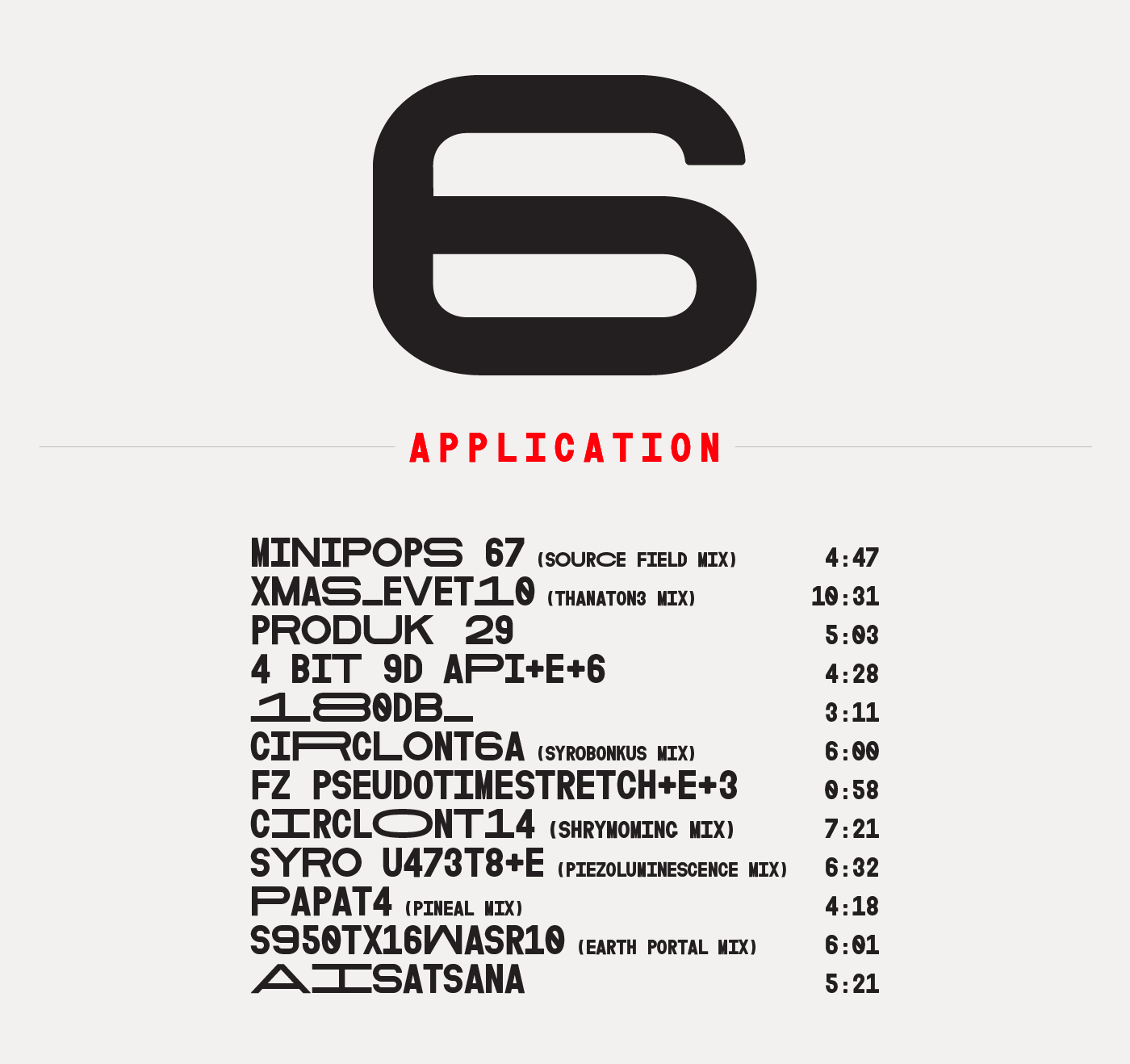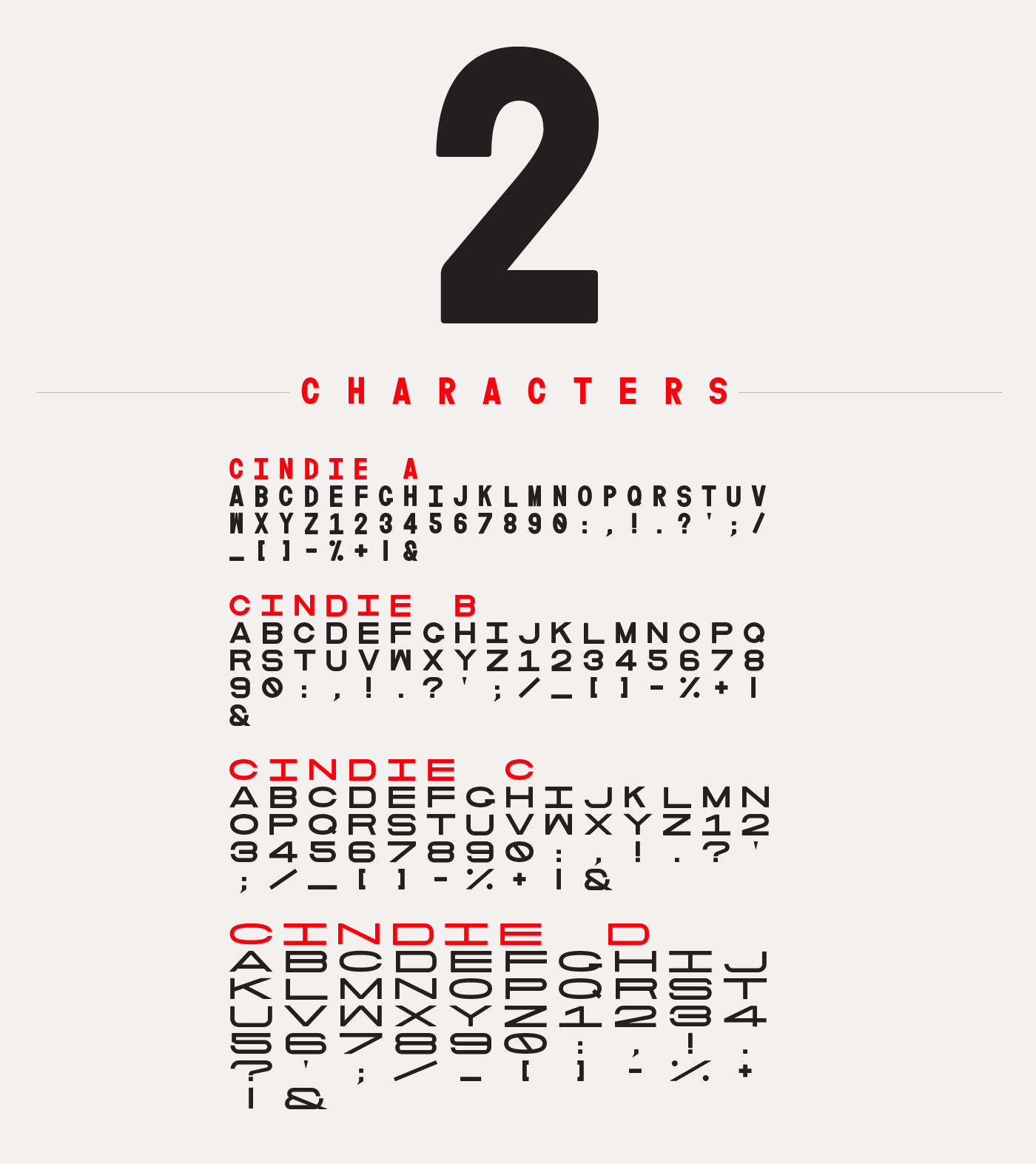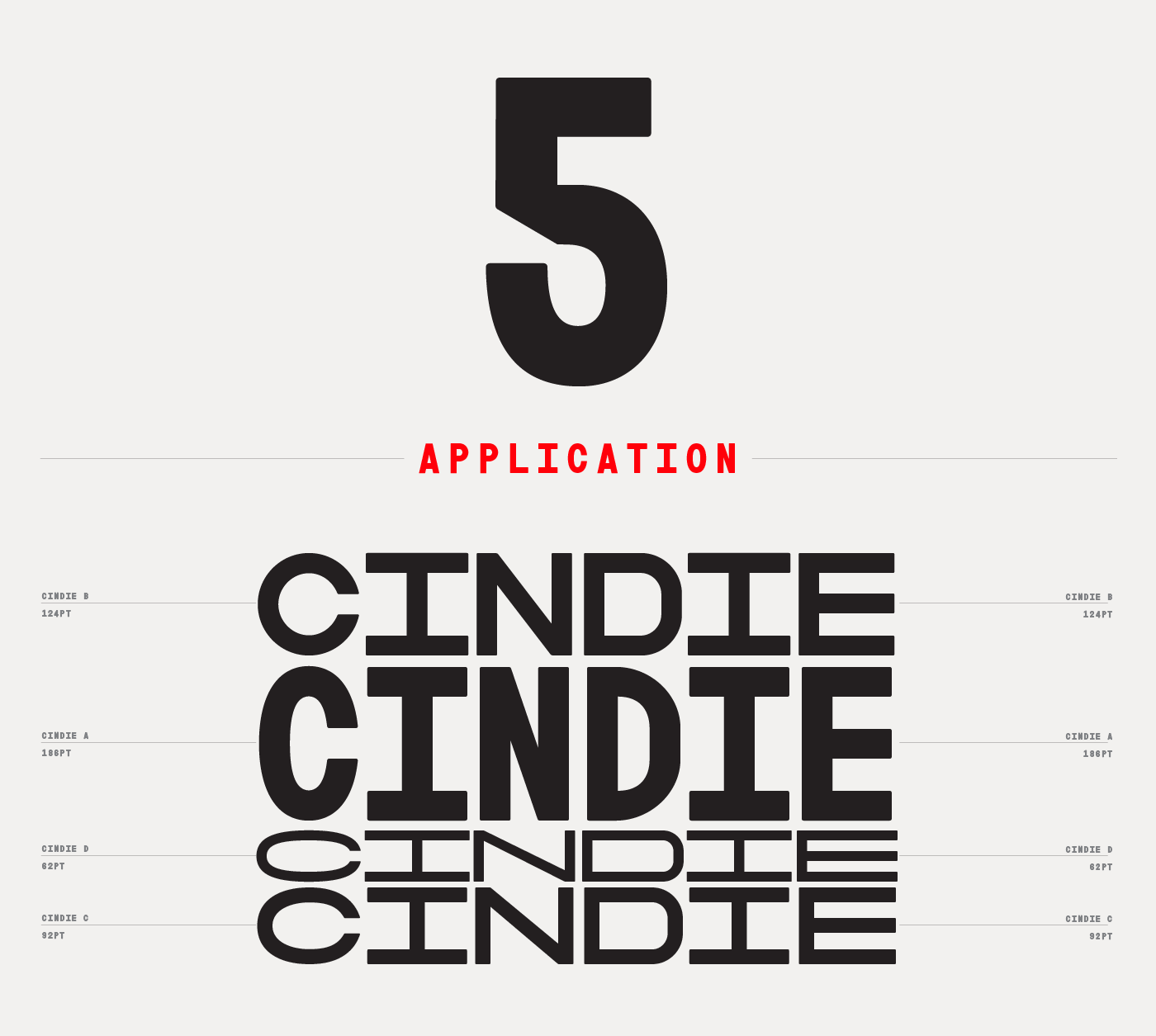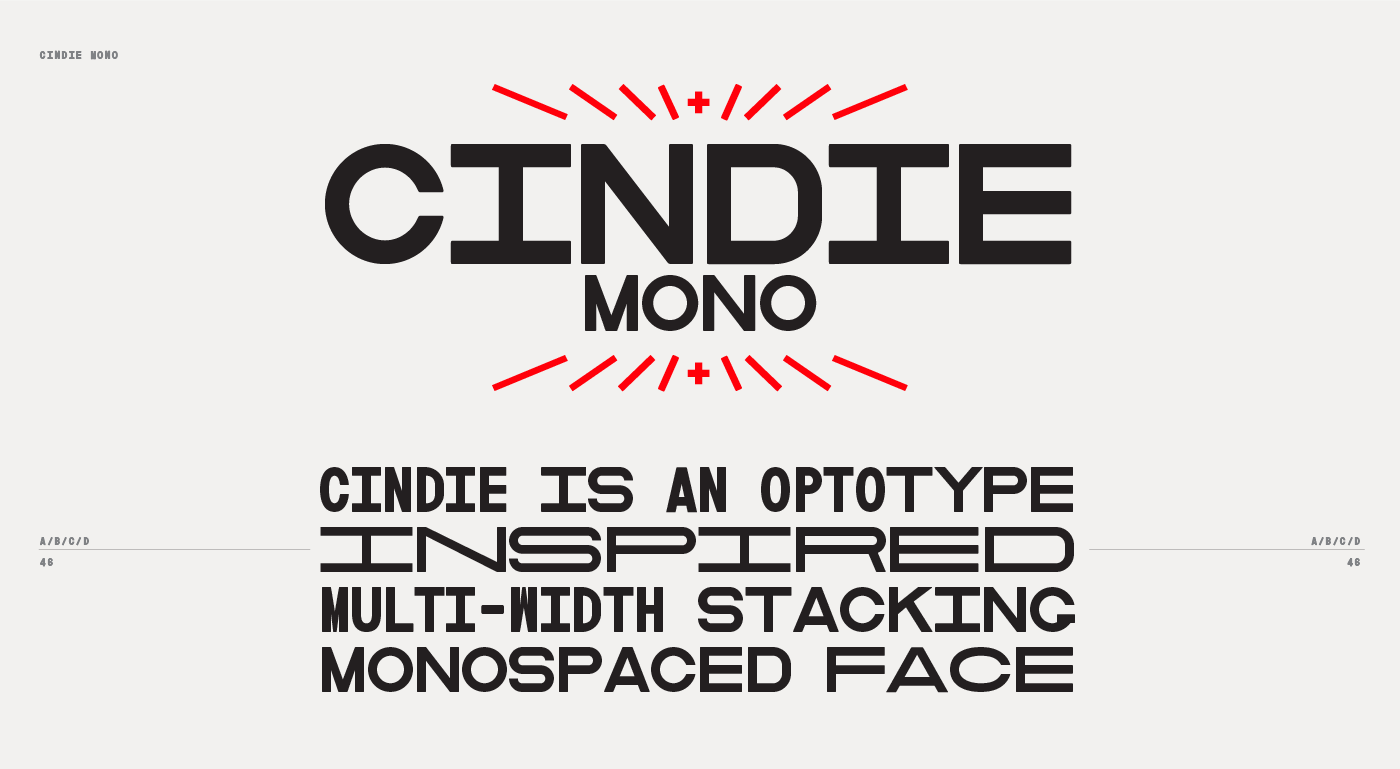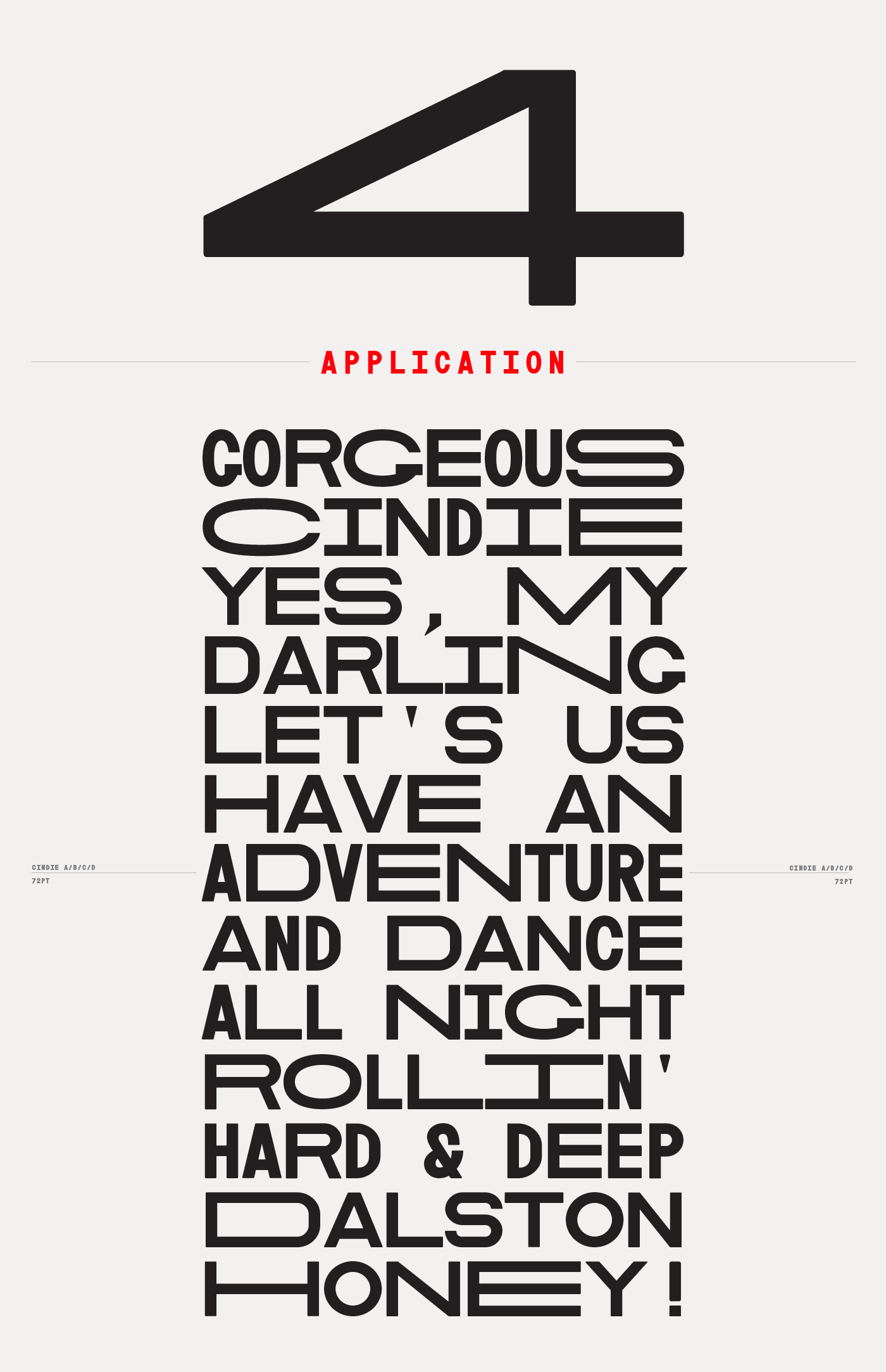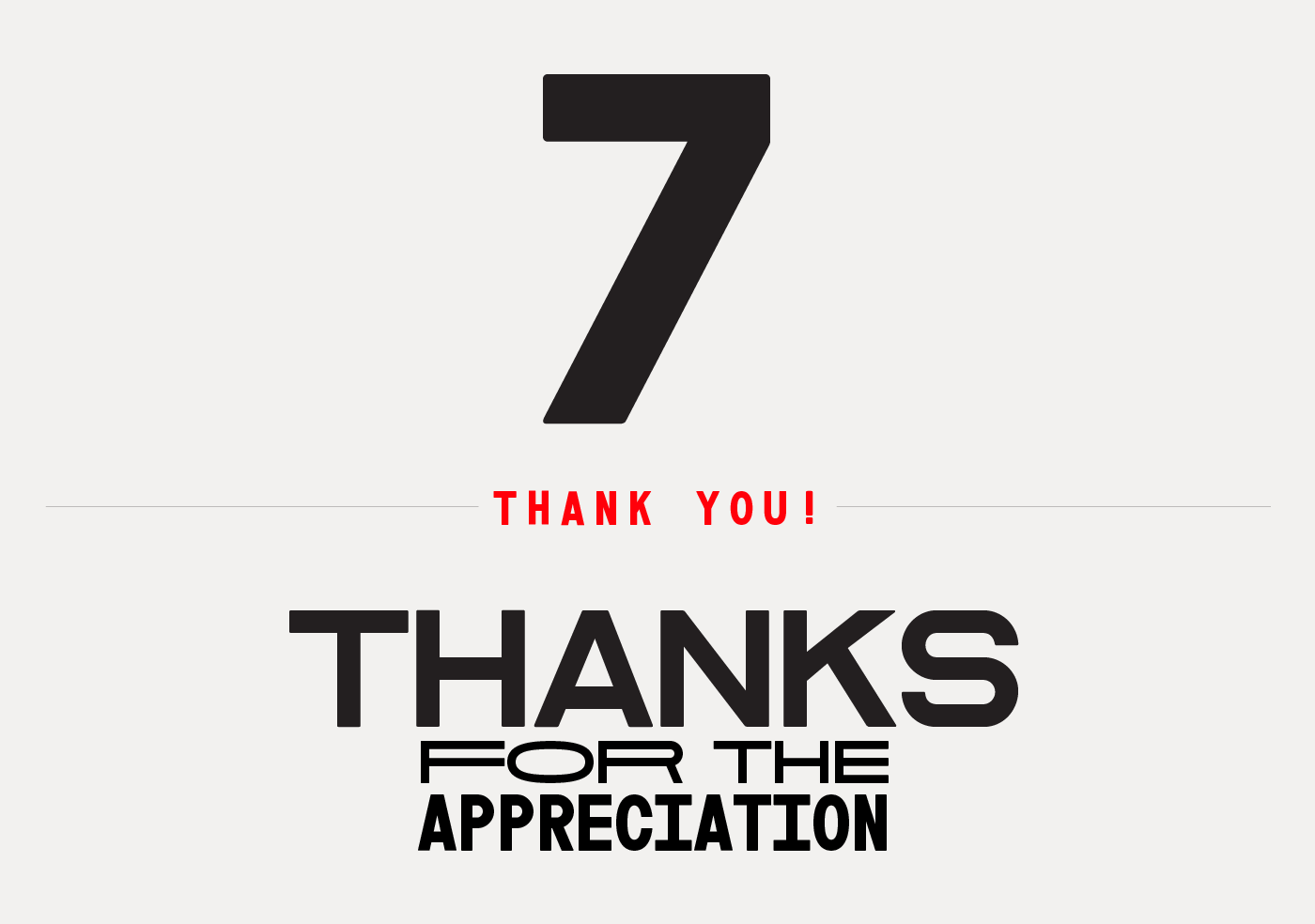
Cindie is a monospaced typeface with four widths design to stack on one-another, and is inspired by optometric lettering and magazine grid systems. Softened corners and mixed counters add to Cindie's readability